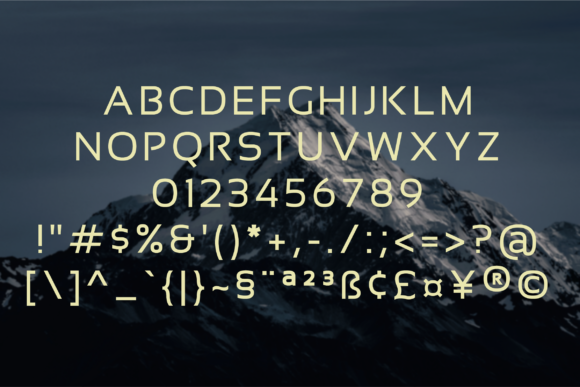
Introduction to Horelios Medium Font
Have you ever been in the midst of a creative project, staring at a blank canvas, and suddenly, the perfect font pops into your mind? For designers, this moment of clarity can make all the difference. It’s the spark that sets the tone for the entire project, and it’s often the result of finding the perfect design resource.
One such design resource that has been making waves in the design community is the Horelios Medium Font. This stunning all caps sans serif font is a masterclass in minimalism, exuding a timeless elegance that’s perfect for layouts, headers, web design, and more. With its high-quality design and transparent background, it’s no wonder designers are flocking to this versatile font for their creative projects.
Key Features of Horelios Medium Font
- Features a unique, elegant design with a transparent background, making it perfect for overlaying on images
- Includes a comprehensive character set with 250+ glyphs, including Latin and Cyrillic alphabets
Honest Review: Horelios Medium Font
I recently stumbled upon the Horelios Medium Font while searching for a free download to enhance my creative project. As a designer, I’m always on the lookout for high-quality fonts that can elevate my designs.
Here are some things that work well about the Horelios Medium Font: ✨
- Unique and elegant design aesthetic
- Highly legible and clear in various font sizes
However, I did encounter some limitations: ⚠️
- May not be suitable for bold or dramatic typography due to its subtle design
- Some users may find the font size inconsistent across different platforms
Overall, I’m impressed with the Horelios Medium Font. Its transparent background and high-quality design make it an excellent addition to any creative project. While it may have some limitations, I believe it’s a solid choice for designers looking for a reliable and elegant font.
Tips for Getting the Most Out of Horelios Medium Font
Experiment with different font sizes and styles to create a unique design. Use the font in combination with other design elements to create a visually appealing composition. Apply the font to text elements and adjust the color to suit your design needs. Use the transparent background feature to create a professional and high-quality look.
The Horelios Medium Font is suitable for a variety of creative projects, including presentations, documents, and designs. Use the font to create a professional and high-quality look for your business, education, or personal projects. The font is also suitable for use in social media, advertising, and marketing materials.
Alternatives to Horelios Medium Font
Lato is a high-quality sans-serif font ideal for various design projects, including logos, websites, and digital interfaces. It features a clean and modern design, making it perfect for creative projects that require a professional look. When to use: Lato is suitable for projects that require a clean and minimalist aesthetic.
Comparison to Horelios Medium Font: Lato has a similar feel to Horelios Medium Font, but with a more modern and sleek design. It’s a great alternative for designers looking for a high-quality font that’s free to download.